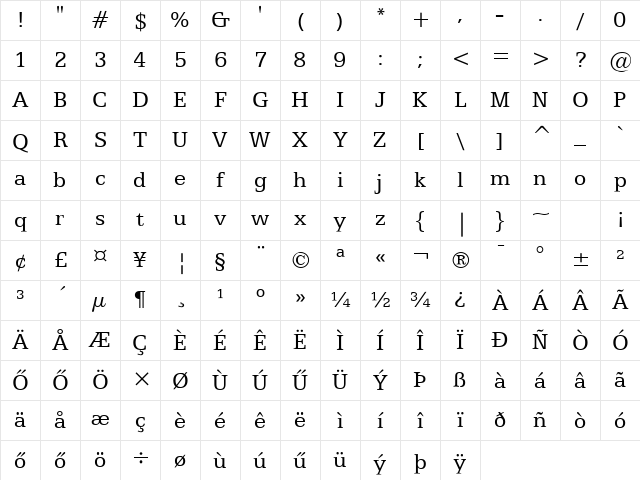
Complete Egyptian-505 HU Normal glyph index. Displaying only characters natively supported by Egyptian-505 HU Normal font.
Egyptian-505 HU features prominent, blocky serifs that give it a confident, grounded presence - equally at home in editorial settings and bold branding work.
Pro Tip: Use Egyptian-505 HU for headlines and subheadings where its slab serifs can make an impression. It also holds up well in mid-size body copy thanks to its sturdy construction.